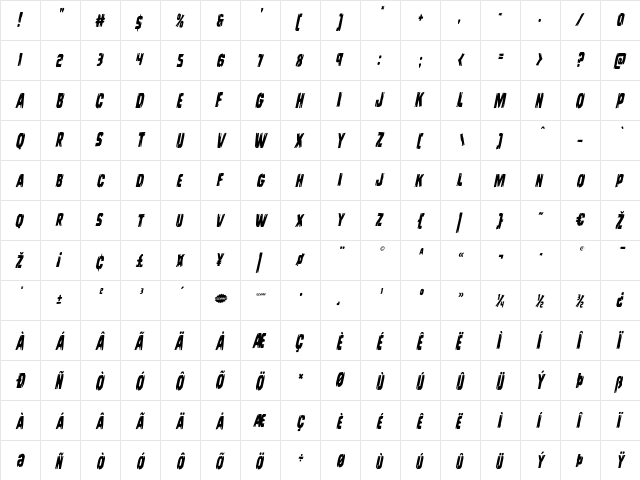
Leatherface Condensed Italic Condensed Italic
Design Context for Leatherface Condensed Italic Typeface
Leatherface Condensed Italic offers clean, dependable letterforms without strong stylistic allegiance, making it a practical choice for designers who need flexibility. The slanted form adds forward momentum and visual energy. Its narrow stance lets it pack a punch even in space-constrained designs.
Pro Tip: Use Leatherface Condensed Italic for emphasis, pull quotes, and subheadings where its slanted energy can add rhythm to the layout.